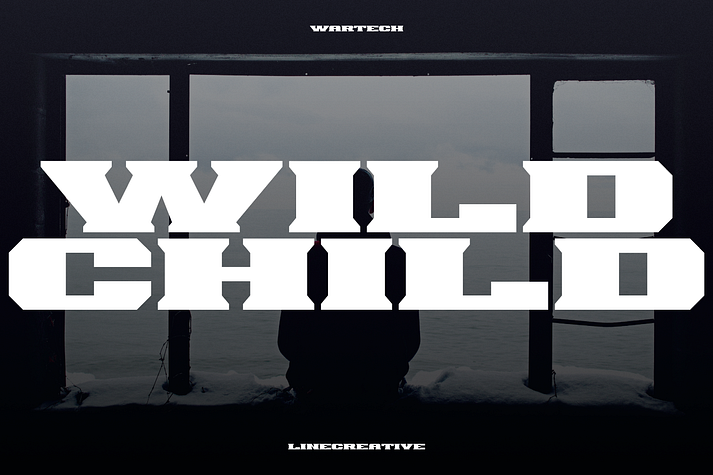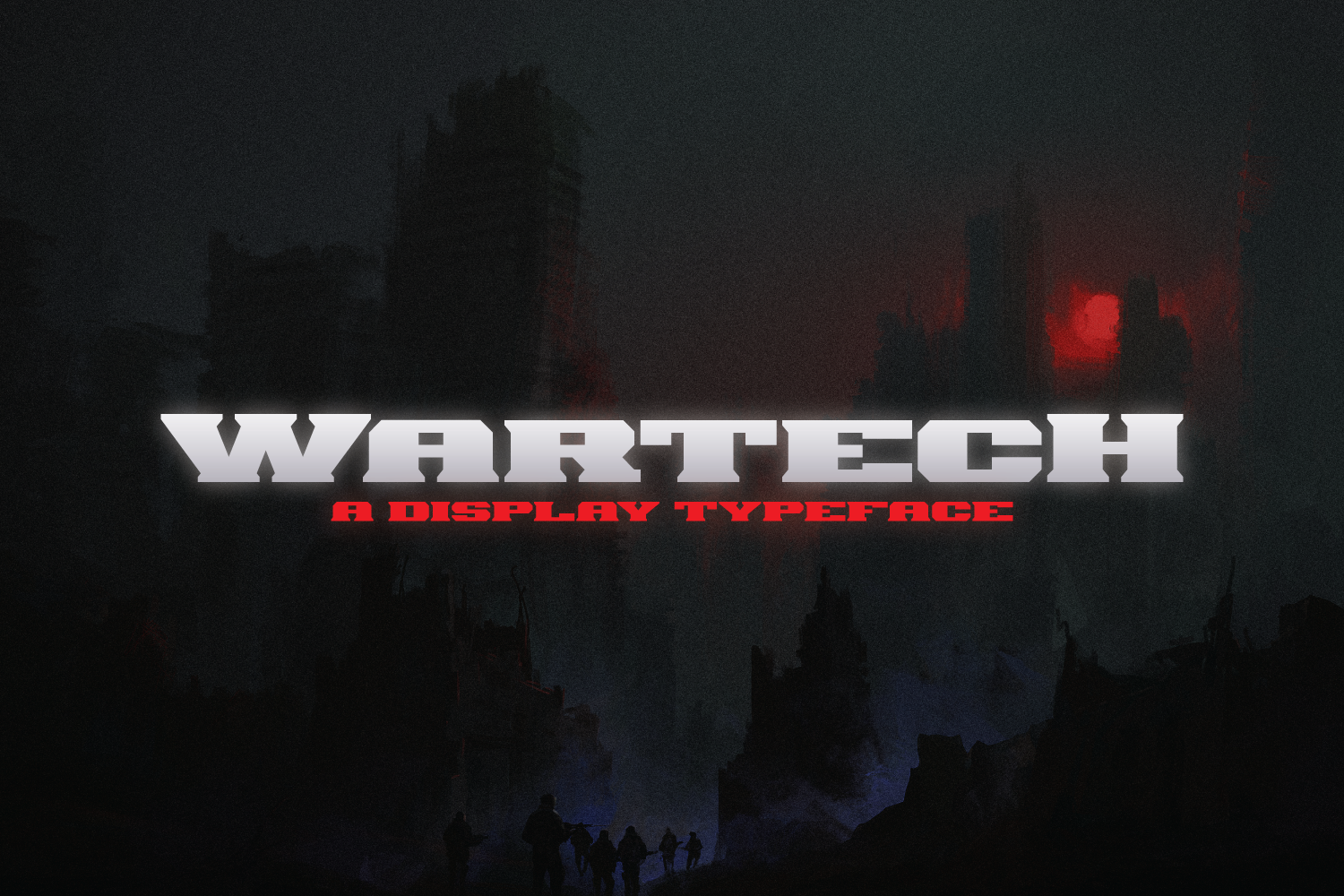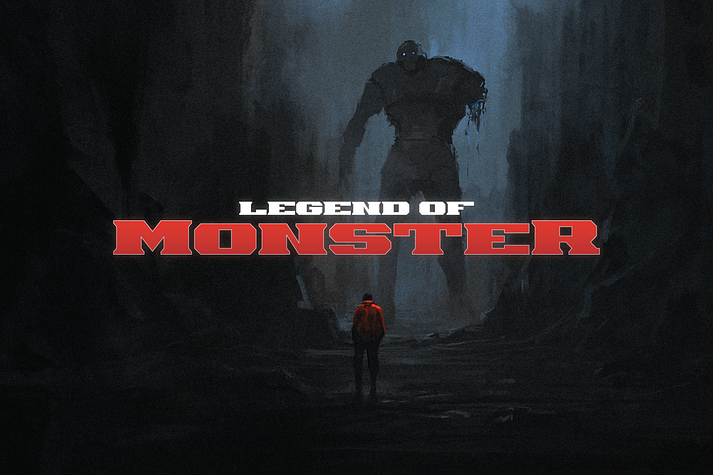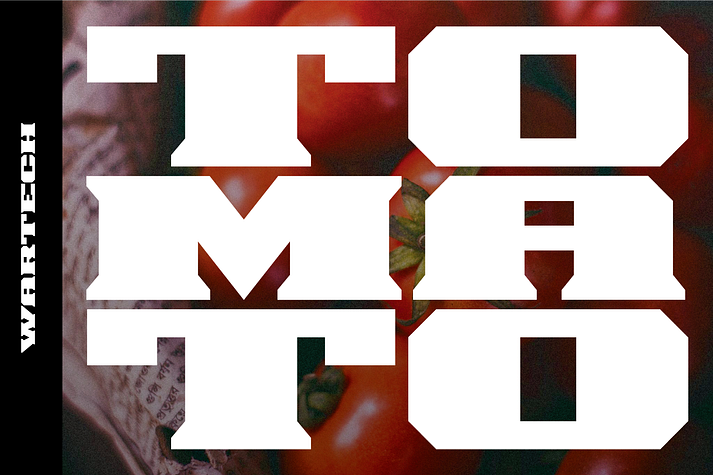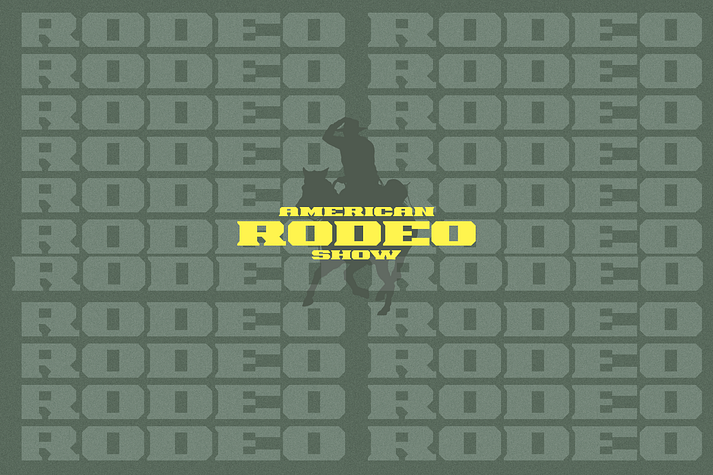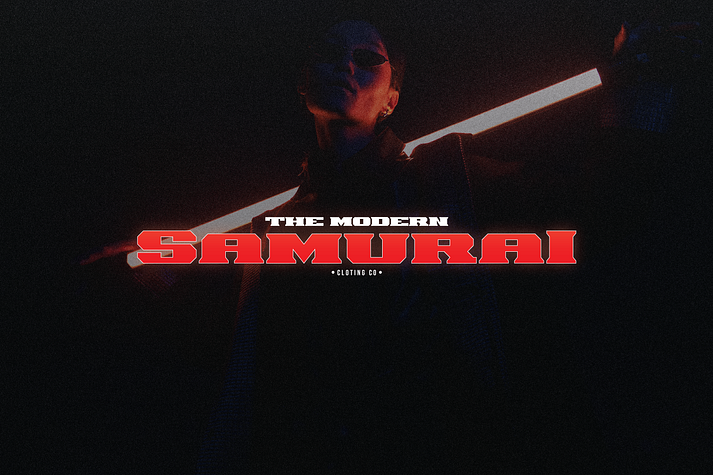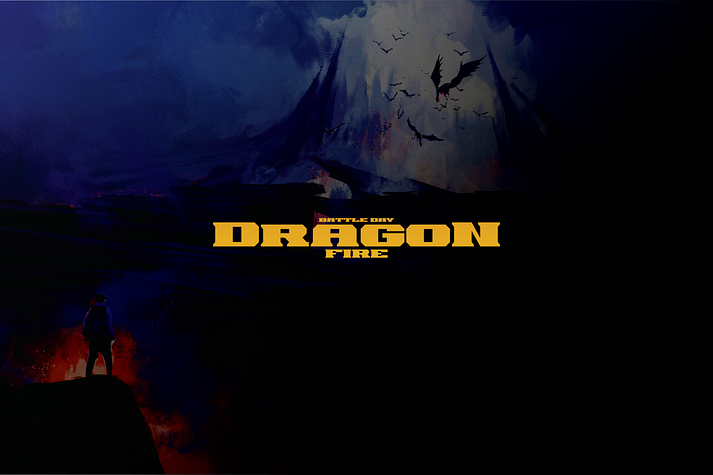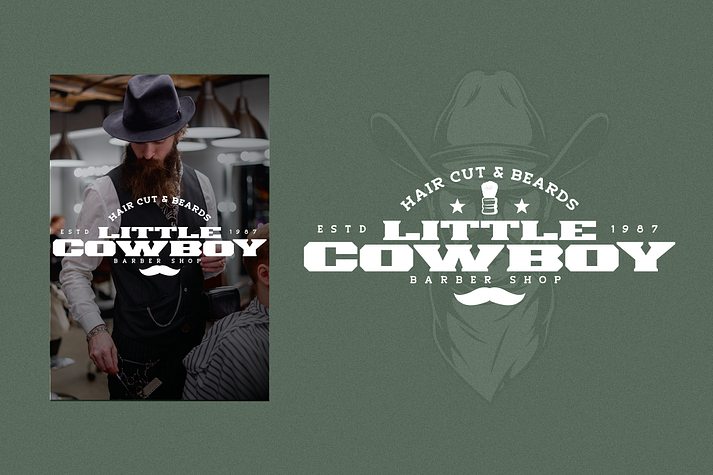
Wartech
Wartech is a font family published by Linecreative.
Wartech slab serif inspired by vintage style with a touch of classic style. This font is built with solid foundations, strong visuals, old-school movement, and a modern minimalist style. Wartech is perfect for Jersey , athletic, poster, branding projects, Logo design, Clothing Branding, product packaging, for magazine titles. for something with the theme of sports, album title, etc